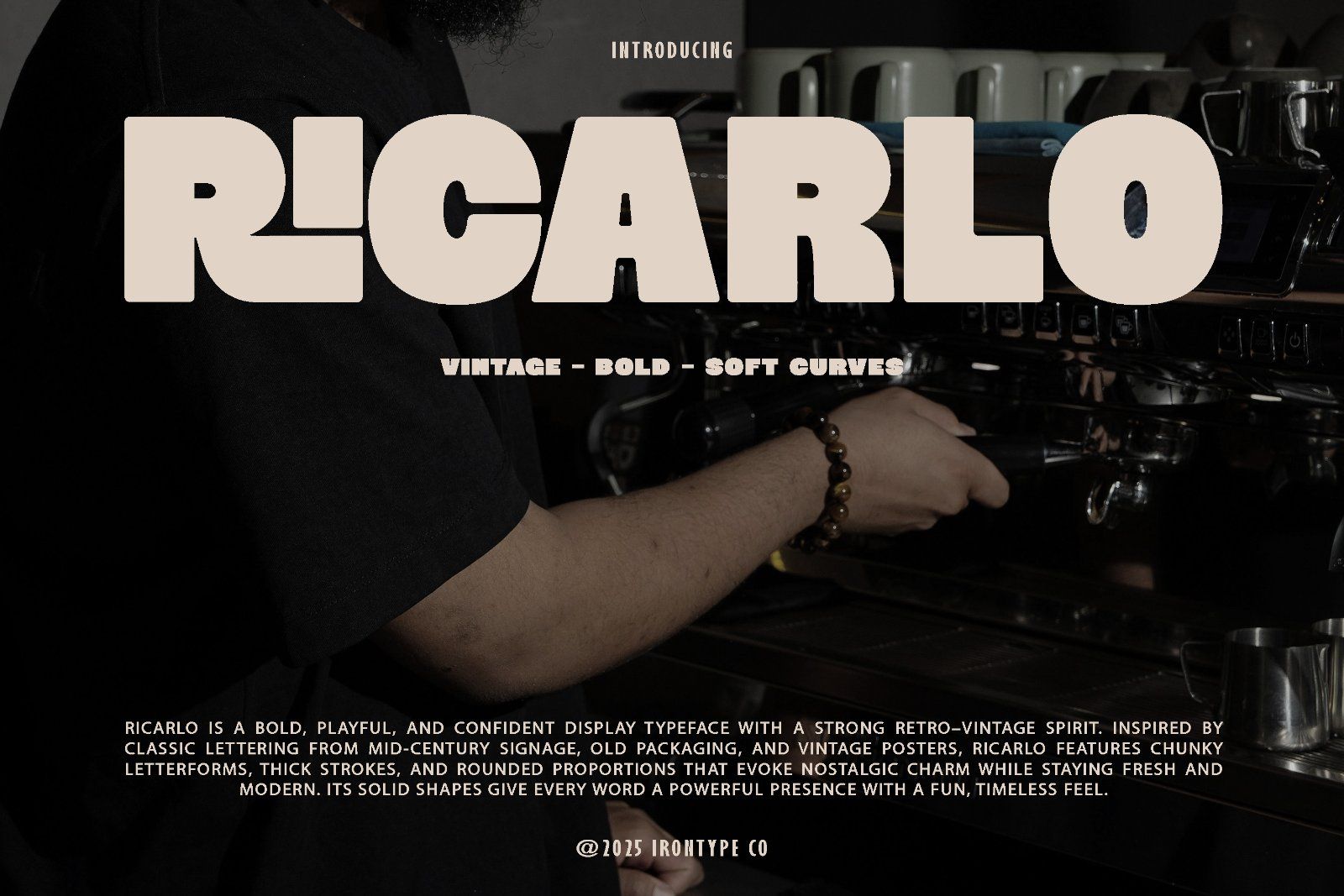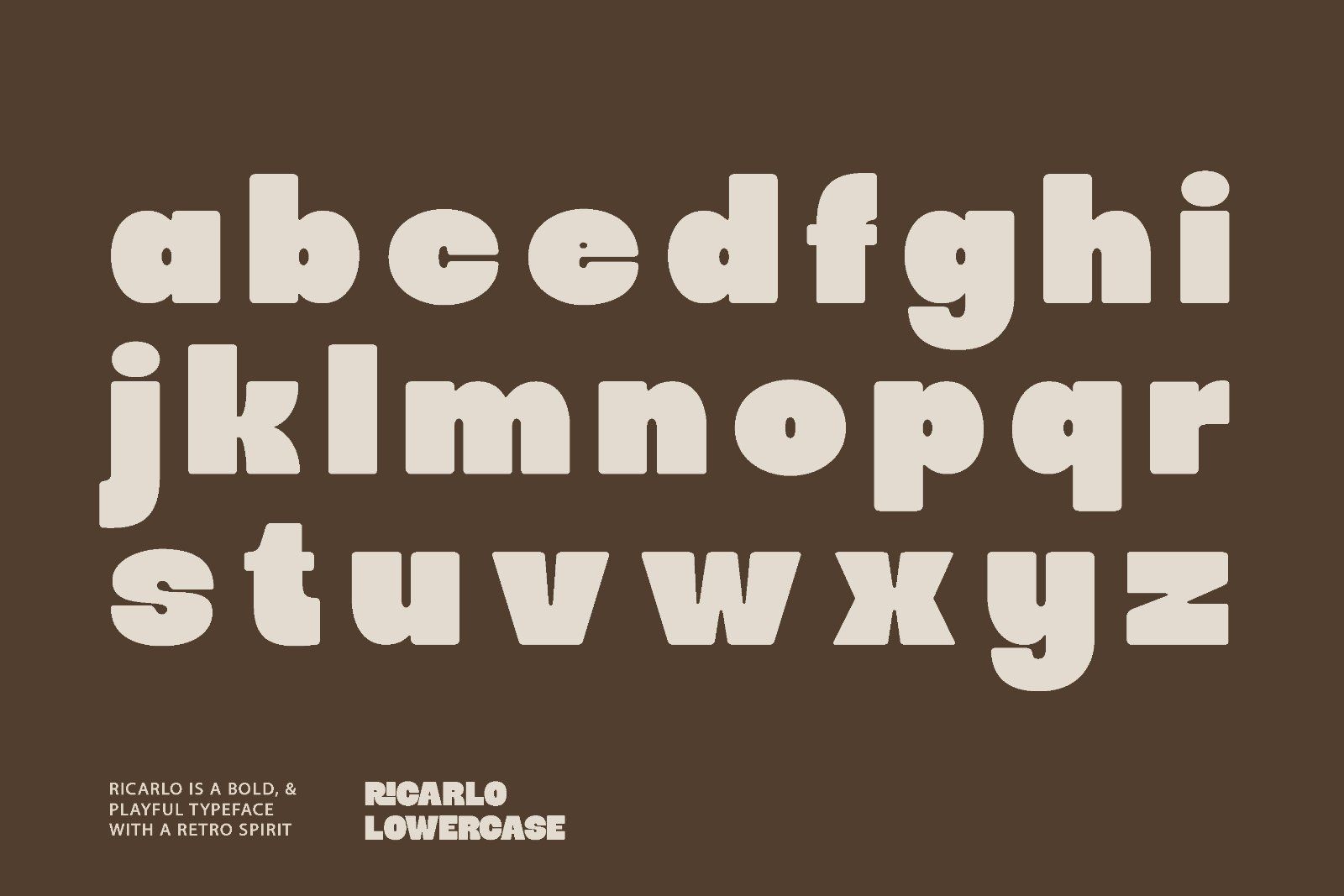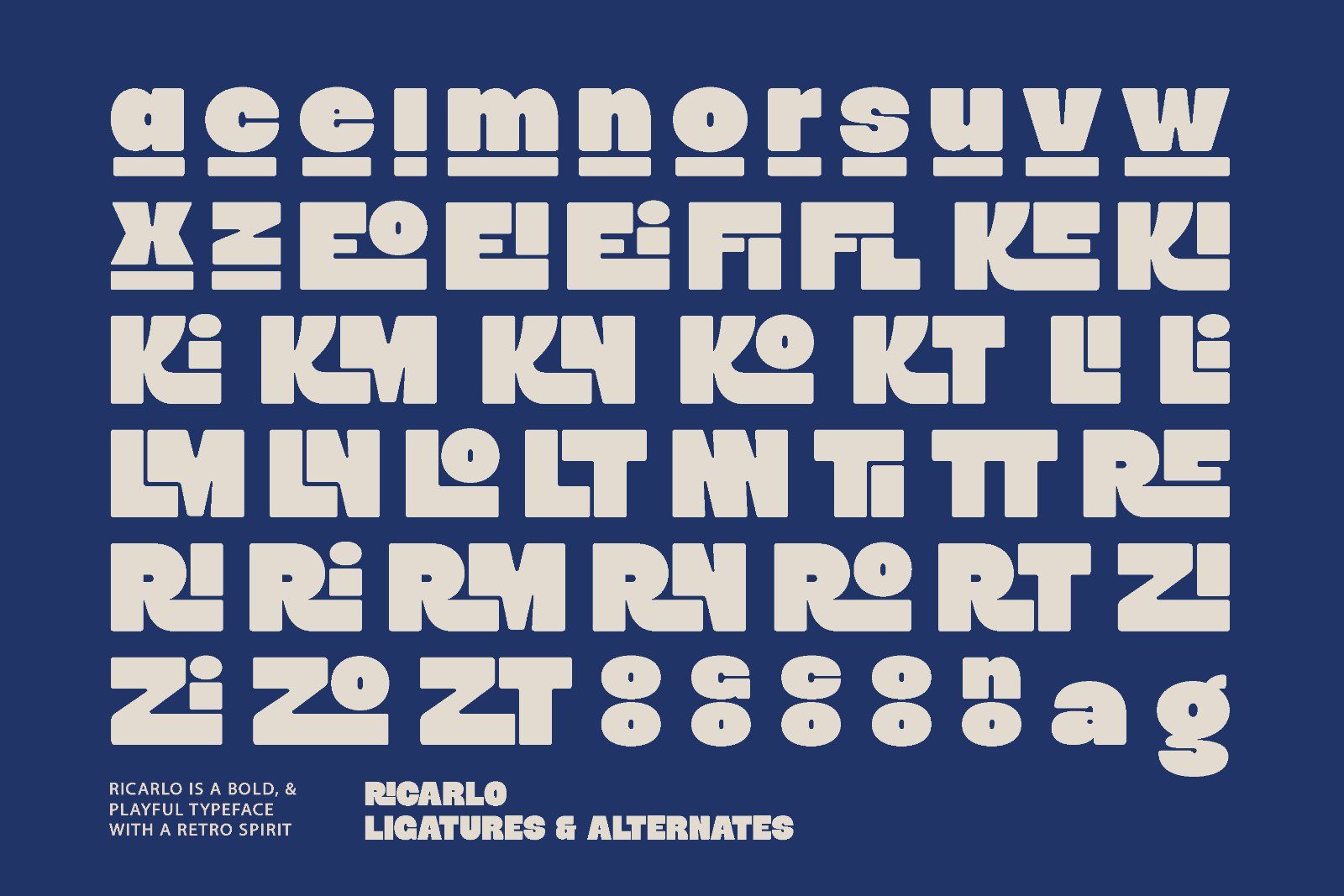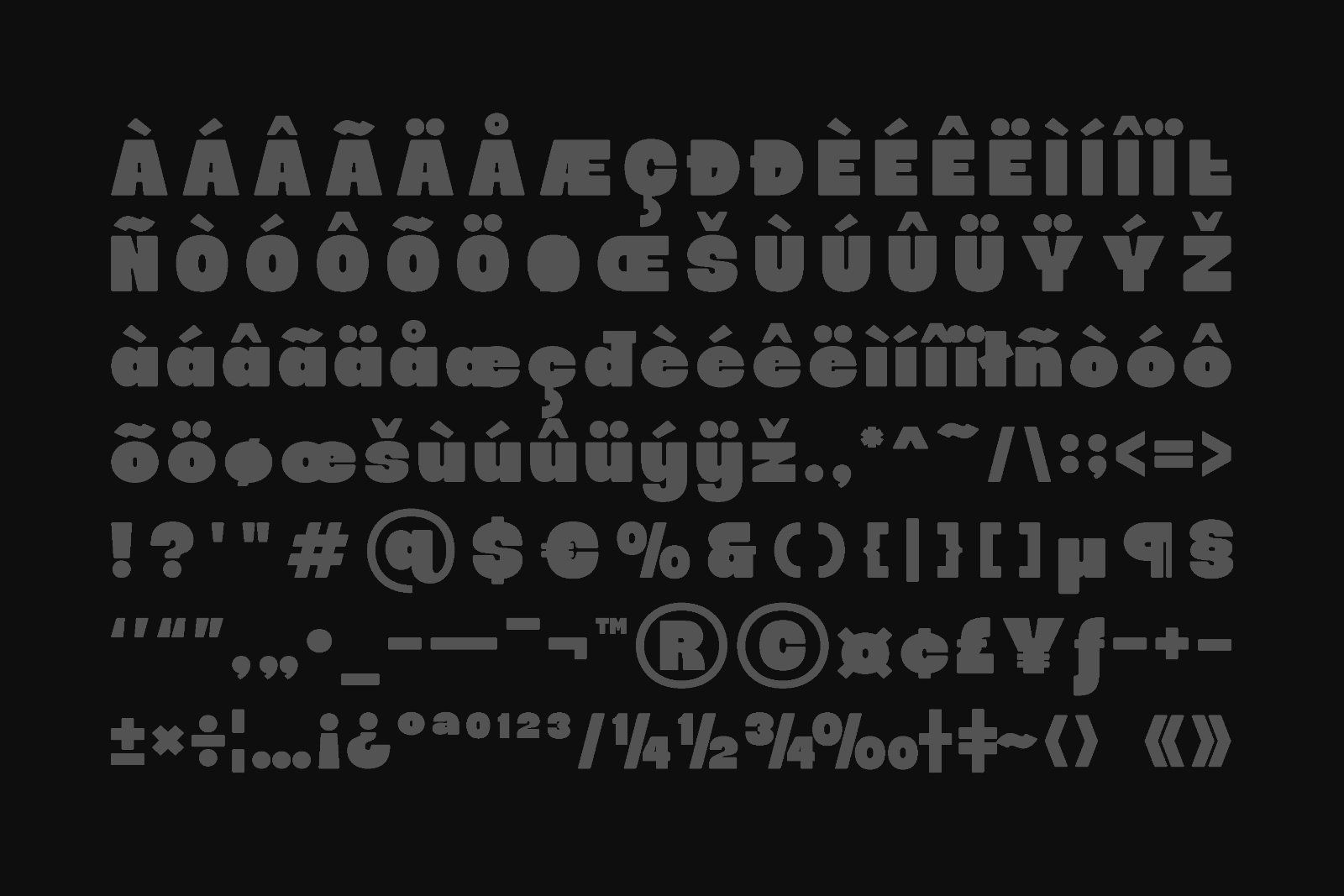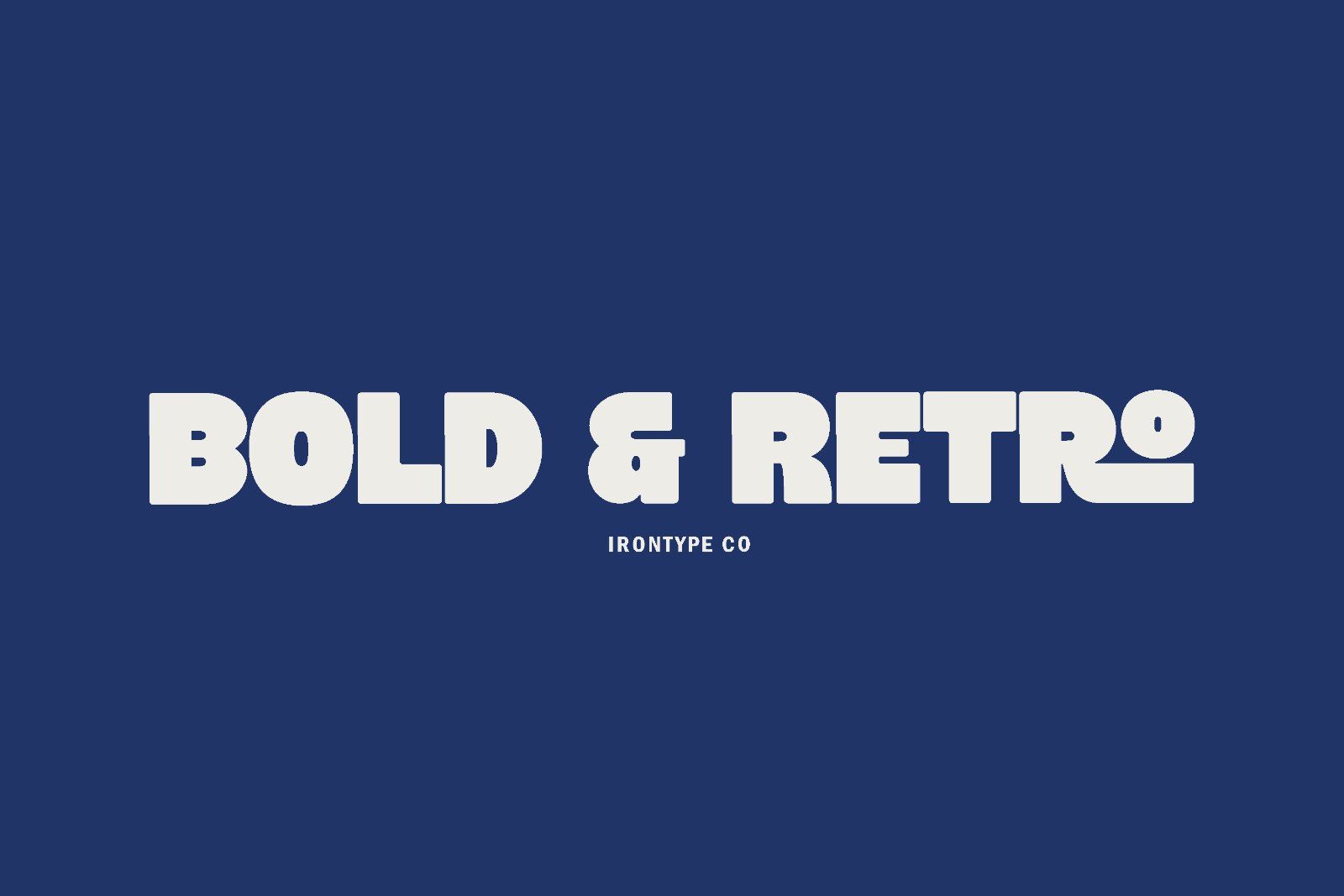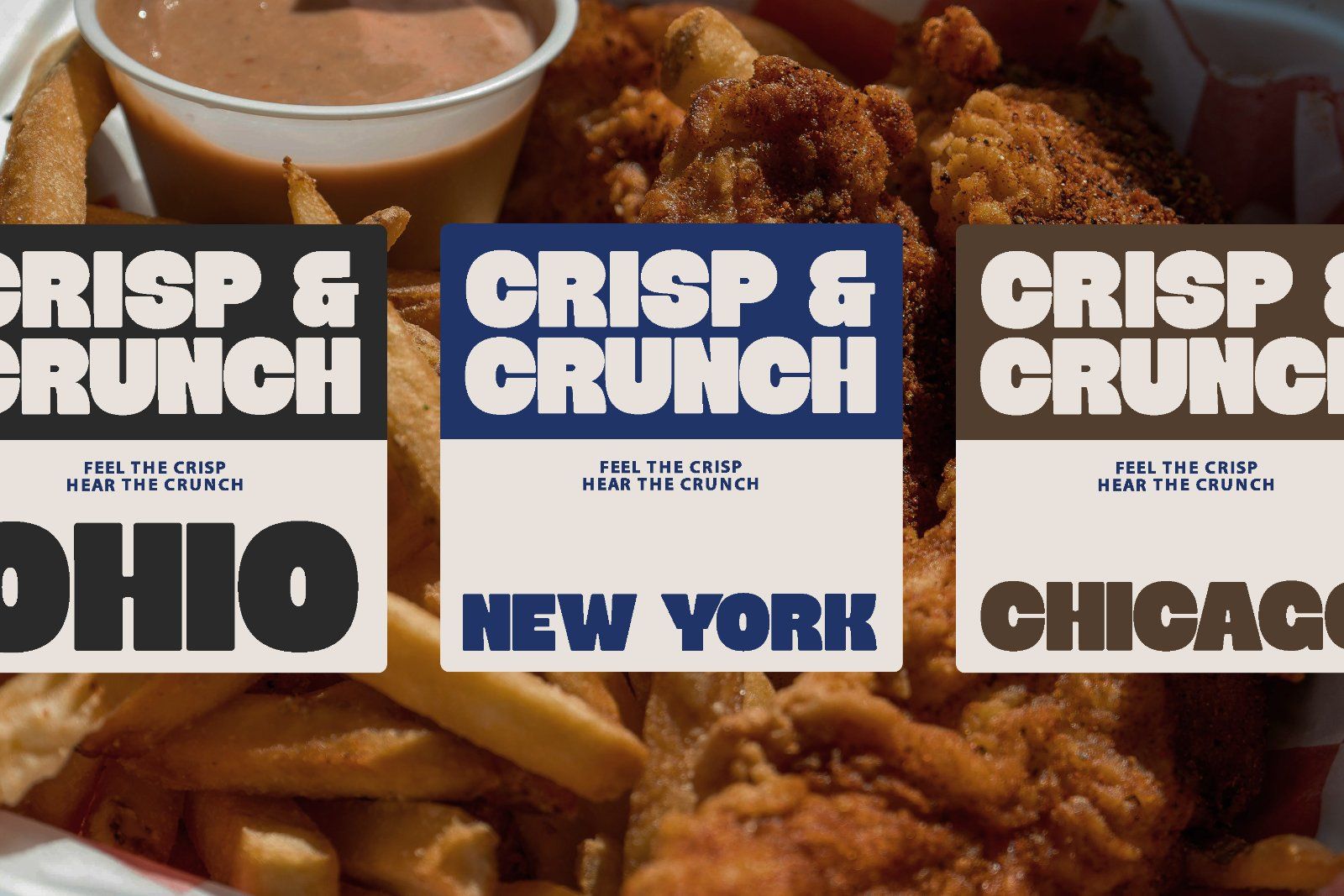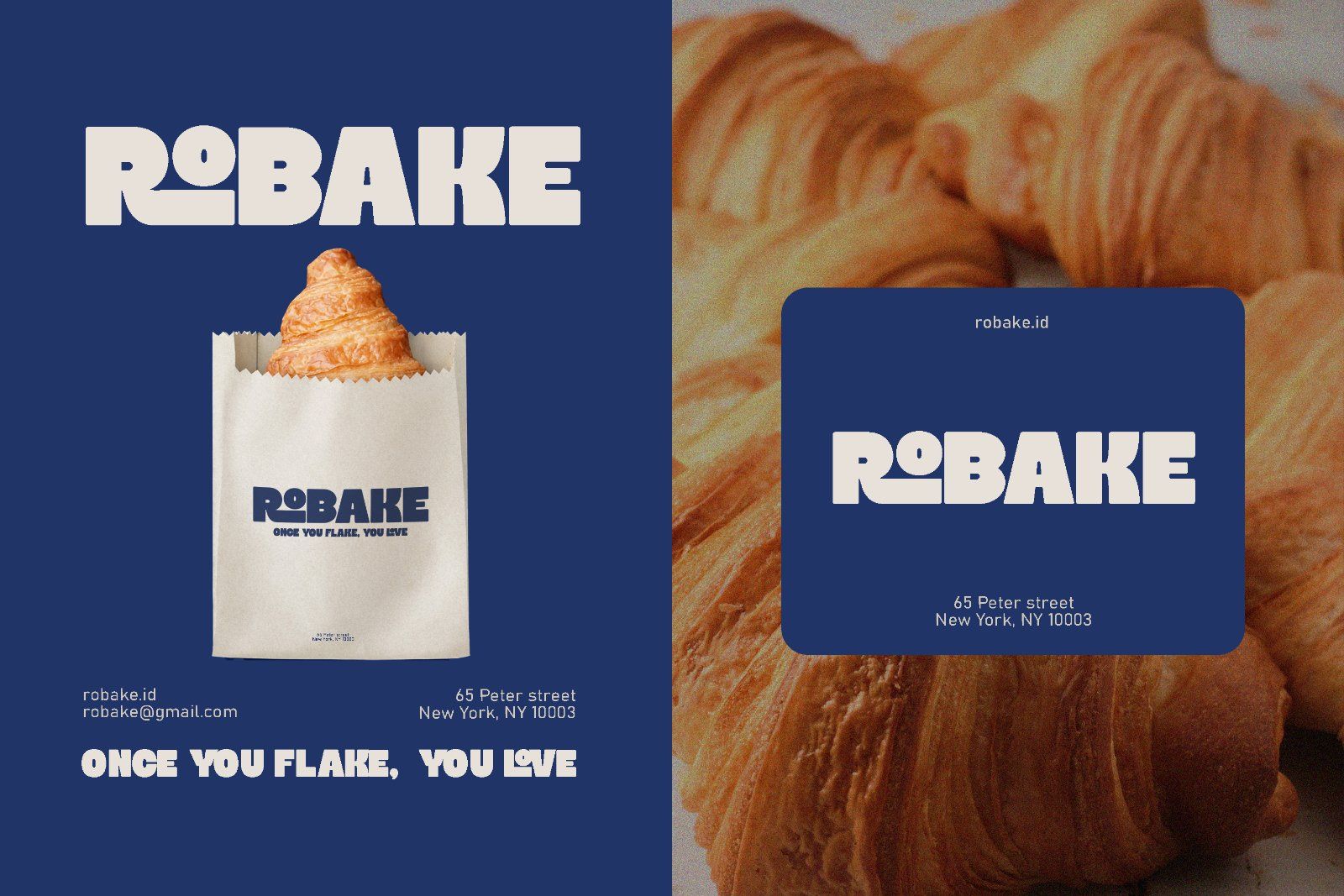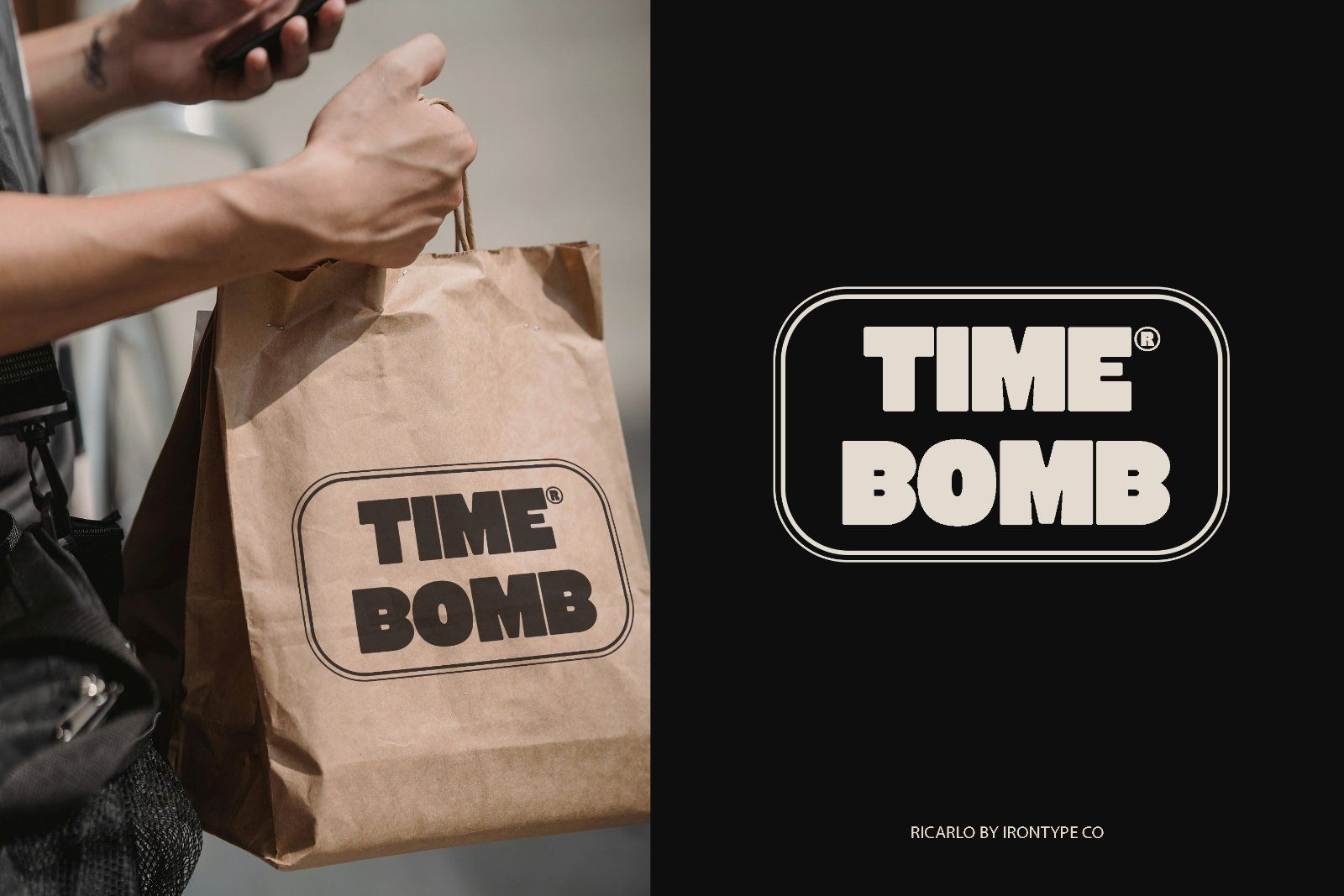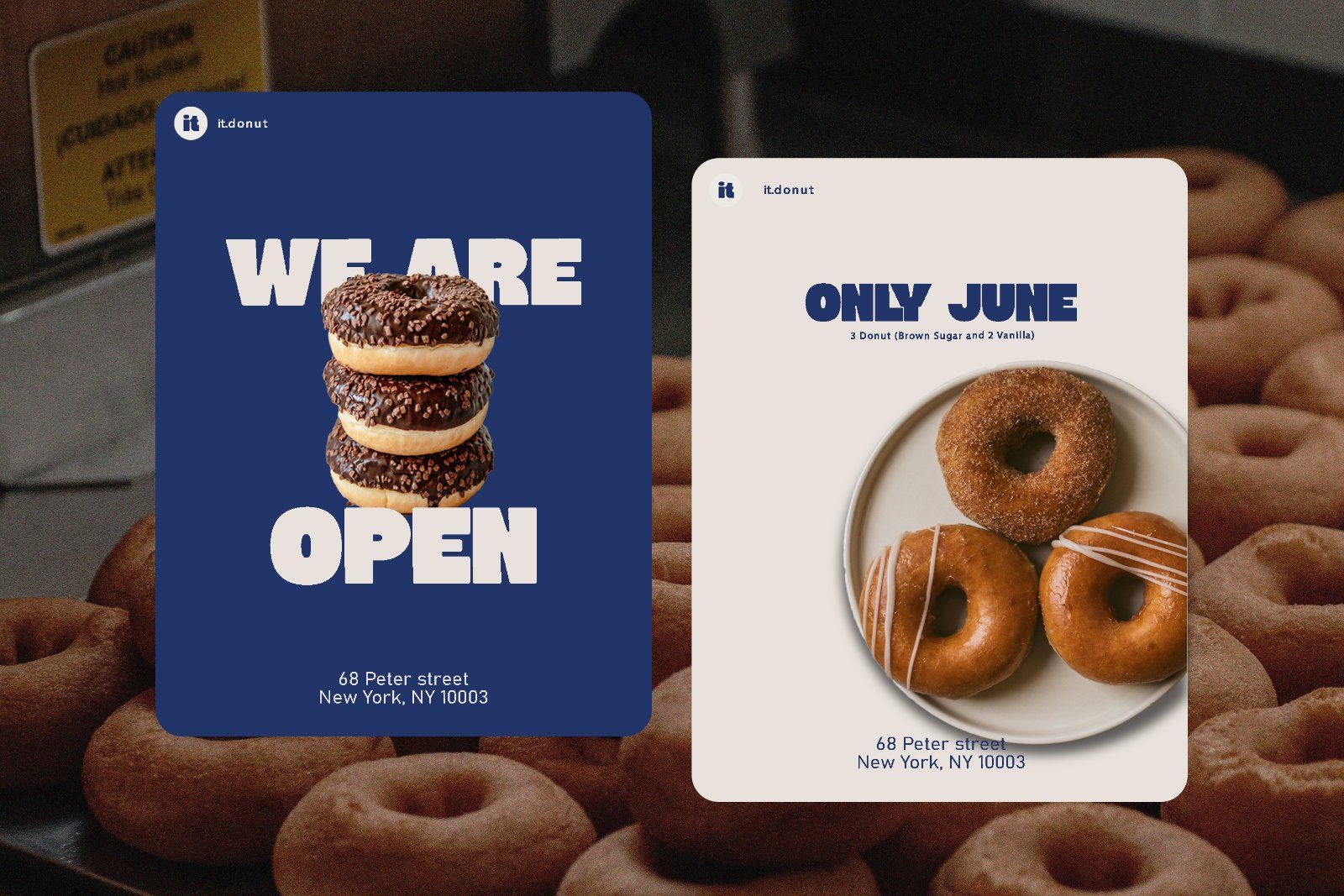
Ricarlo is a bold, playful, and confident display typeface with a strong retro–vintage spirit. Inspired by classic lettering from mid-century signage, old packaging, and vintage posters, Ricarlo features chunky letterforms, thick strokes, and rounded proportions that evoke nostalgic charm while staying fresh and modern. Its solid shapes give every word a powerful presence with a fun, timeless feel.
• Uppercase & Lowercase Letters
• Numbers & Punctuation
• Alternates & Ligatures
• Multi Lingual Support
Best Used For:
• Posters & Event Flyers
• Headlines & Titles
• Logo & Brand Identity (retro, lifestyle, food, fashion, music)
• Album Covers & Merchandise
• Packaging Design (snacks, beverages, streetwear, vintage brands)
• Social Media Graphics & Advertising
• Editorial Highlights & Magazine Covers